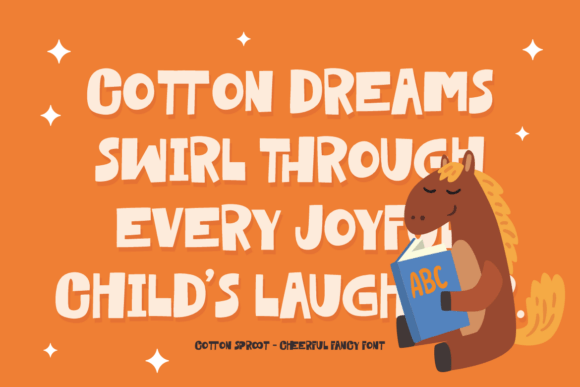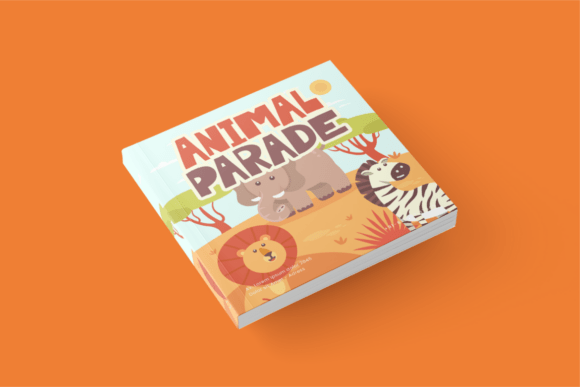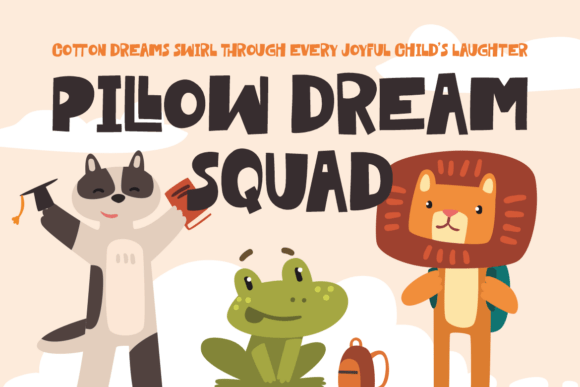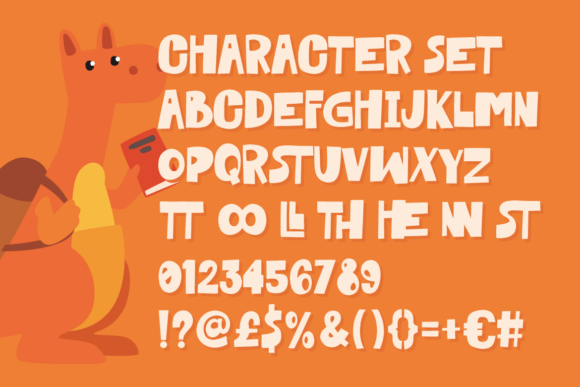
Introduction to Cotton Sproot Font Font
Fonts play a crucial role in design, and the Cotton Sproot Font font is a typeface that brings both character and versatility to any project. Whether you’re working on a branding project, a website, or a print design, the Cotton Sproot Font font offers a unique style that can elevate your work.
Cotton Sproot is a cheerful and playful fancy font that brings energy, joy, and childlike wonder to any design.
Its thick, bubbly strokes and slightly wobbly shapes create a spontaneous charm—perfect for early-age education, children’s books, or playful branding With exaggerated letterforms and fun proportions, each character seems to bounce off the baseline, enhancing the lighthearted atmosphere of your message.
Key Features of Cotton Sproot Font Font
Why Choose Cotton Sproot Font Font?
The Cotton Sproot Font font is more than just a typeface – it’s a design tool that helps you communicate your message with style and clarity. Its unique character set and versatile design make it suitable for a wide range of applications, from elegant invitations to bold headlines.
With its carefully crafted letterforms and balanced proportions, the Cotton Sproot Font font ensures readability and visual appeal across all mediums.
What makes Cotton Sproot Font font special?
The Cotton Sproot Font font stands out with its unique design, exceptional readability, and versatility across various design applications.